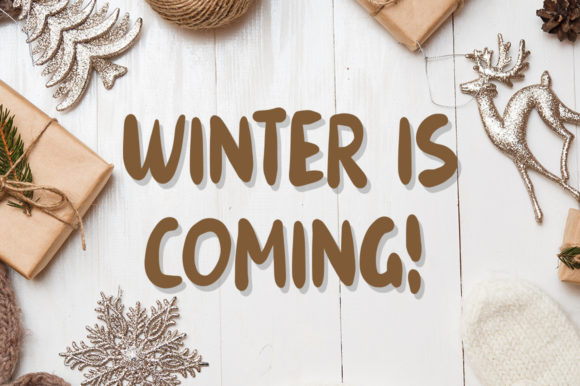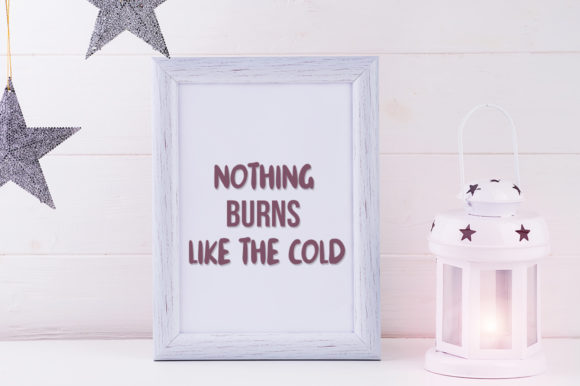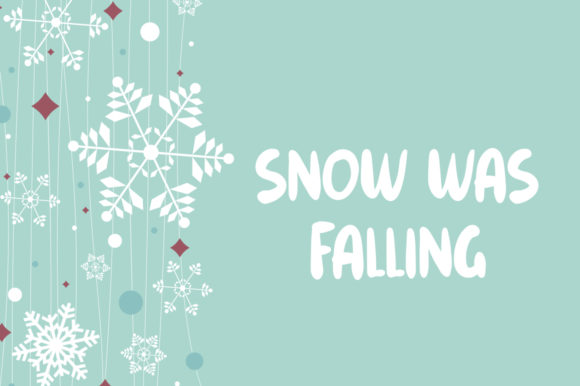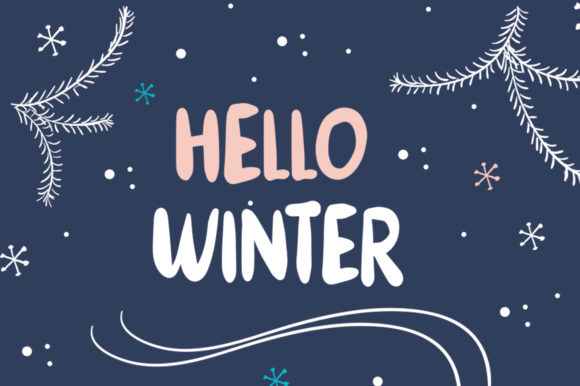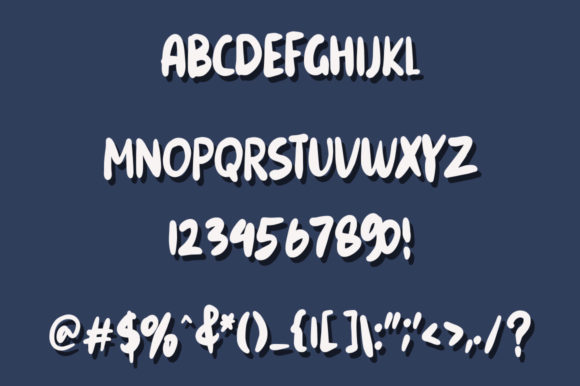
Introduction to Snowes Font Font
Fonts play a crucial role in design, and the Snowes Font font is a typeface that brings both character and versatility to any project. Whether you’re working on a branding project, a website, or a print design, the Snowes Font font offers a unique style that can elevate your work.
Snowes is a friendly, casual and fun display font.
This font is perfect for children themed designs, especially when combined with bright colors .
The Snowes Font font is more than just a typeface – it’s a design tool that helps you communicate your message with style and clarity. Its unique character set and versatile design make it suitable for a wide range of applications, from elegant invitations to bold headlines.
With its carefully crafted letterforms and balanced proportions, the Snowes Font font ensures readability and visual appeal across all mediums.
The Snowes Font font stands out with its unique design, exceptional readability, and versatility across various design applications.